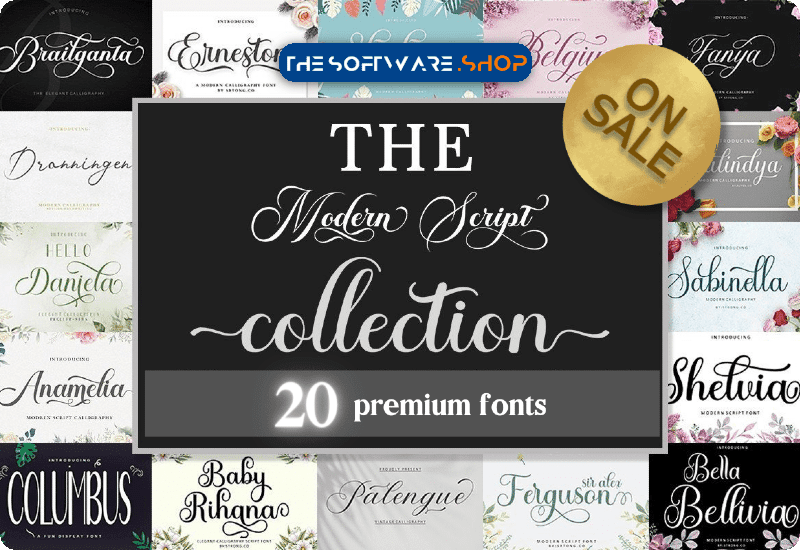
Are you in need of some unique and beautiful swirly fonts for your design projects? Look no further than the Modern Script Font Bundle, now available for FREE!
The Modern Script Font Bundle, brought to you by Strong.co Indie Type Design, features 20 unique and beautiful swirly fonts that will elevate any design. From decorating stationery to creating invitations and book covers, these fonts are perfect for any project.
One of the best things about this bundle is that most of the fonts are PUA encoded, which means you’ll have easy access to all of the special characters. This makes it even easier to create stunning designs that stand out.
The fonts included in this package are:
• Ernestone Script Script & Handwritten Font
• Sabinella Script & Handwritten Font
• Bella Bellivia Script & Handwritten Font
• Brailganta Script Script & Handwritten Font
• Baby Rihana Script & Handwritten Font
• Columbus Display Font
• Daniela Script & Handwritten Font
• Shelvia Script & Handwritten Font
• Madelena Script & Handwritten Font
• Anamelia Calligraphy Font
• Sherlina Script Script & Handwritten Font
• Belgium Script & Handwritten Font
• Sir Alex Ferguson Script & Handwritten Font
• Birmigham Script & Handwritten Font
• Fanya Script & Handwritten Font
• Palengue Script & Handwritten Font
• Dalinya Script & Handwritten Font
• Geynelle Script & Handwritten Font
• Brinita Calligraphy Font
• Dronningen Signature Script & Handwritten Font
Each font included in this bundle is unique and offers its own style. Browse through the collection and find the perfect fit for your next project. From the elegant Ernestone Script to the playful Baby Rihana Script, this bundle has something for everyone.
The Modern Script Font Bundle features a variety of elegant and unique fonts that are perfect for a wide range of design projects. Some potential usage ideas include:
• Decorating stationery: Use the beautiful swirly fonts to create invitations, thank you cards, and other forms of stationery that will stand out.
• Creating greeting cards: The variety of font styles in the bundle means you can create cards for any occasion, from birthdays to weddings.
• Designing book covers: The elegant and unique font styles will give your book covers a professional and polished look.
• Creating posters and flyers: Use the display fonts to create eye-catching posters and flyers for events, promotions, or products.
• Designing social media graphics: Use the fonts to create engaging graphics for Instagram, Facebook, and other social media platforms.
• Making T-Shirt design, Logos, and branding materials: The fonts can be used to create unique and eye-catching designs for clothing and other products, as well as for creating logos and other branding materials
• Adding a touch of elegance to websites: Use the fonts to create elegant headings and typography for your website, making it stand out from the crowd.
The possibilities are endless, you can use these fonts for any project you can imagine.